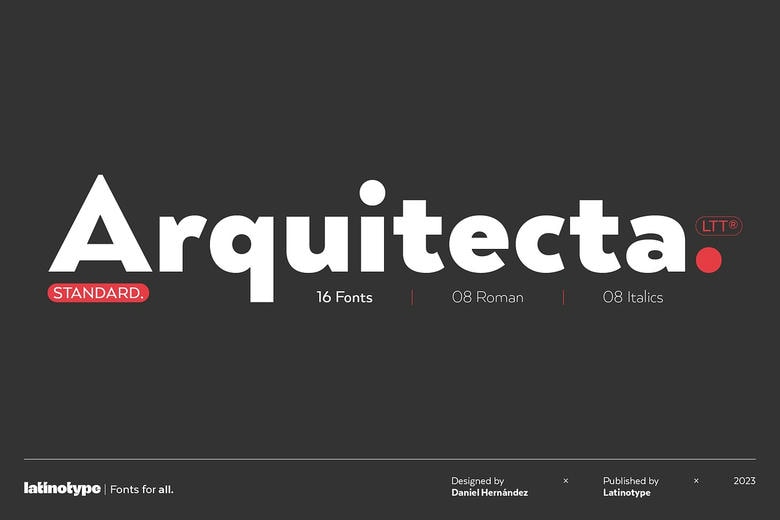
Arquitecta Standard Font Family
Arquitecta Standard. Typographic manifestation of the humanist as the rational type. To build a rational geometric typeface with humanist proportions for such text setting and continuous reading as we aimed to find a new mix for constructing such typeface, after we looked for that mix through the experimentation from the Bauhaus through modern sans history.
Based on the hand lettering from the American and European typography of the first half of the past century, Arquitecta takes its place as a good substitute for paragraph type faces before such giants as Futura, Kabel or Avant Garde.
Arquitecta Standard Sans Serif Font Family